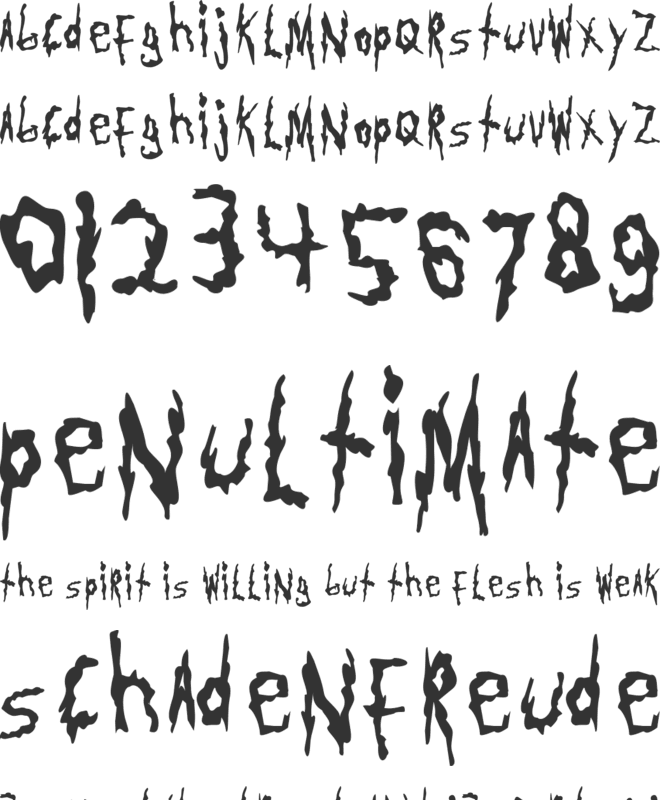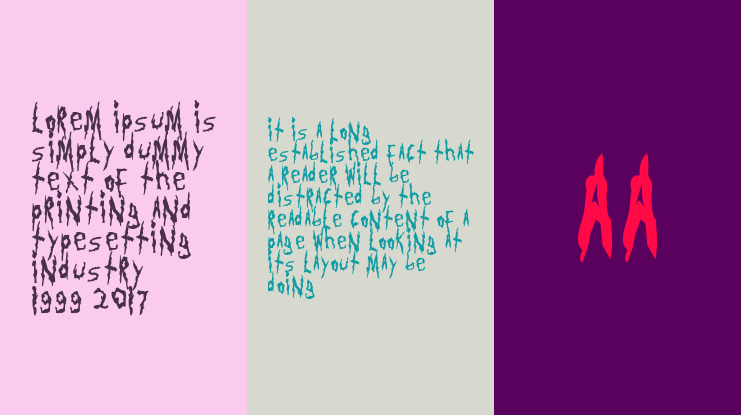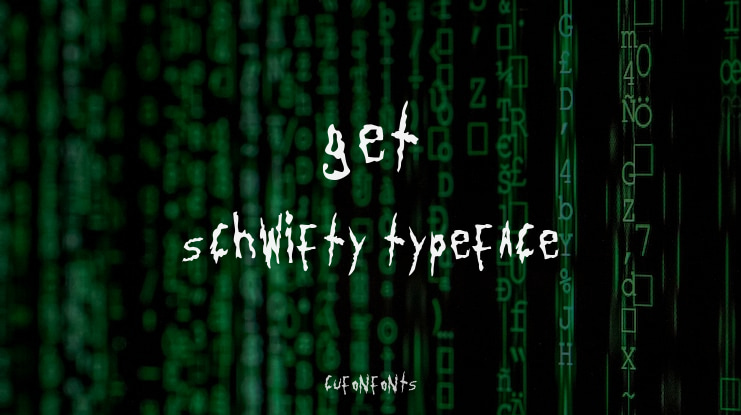
Get Schwifty Font
A font that I made inspired by the Rick and Morty title font. I couldn't find anything by googling, so I made my own. I traced what letters I could find and made up the rest. It's not perfect. There is no punctuation, only basic letters and numbers. Enjoy.